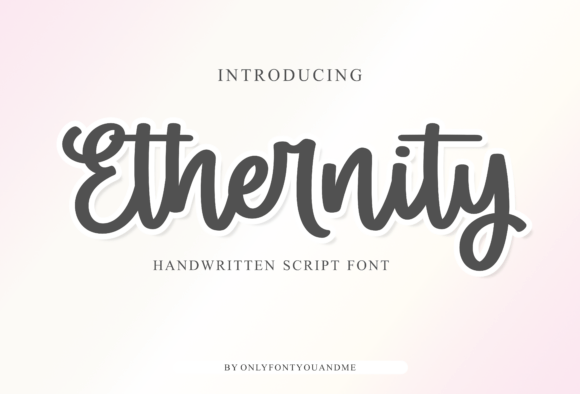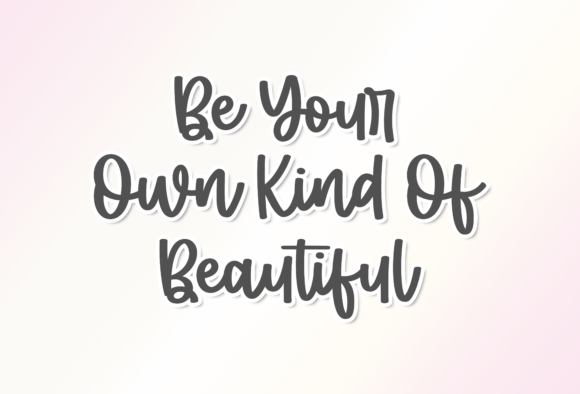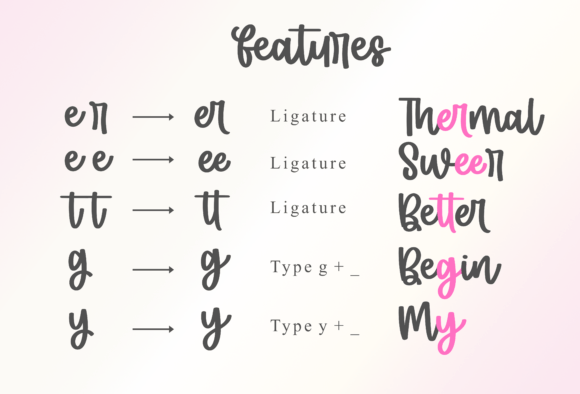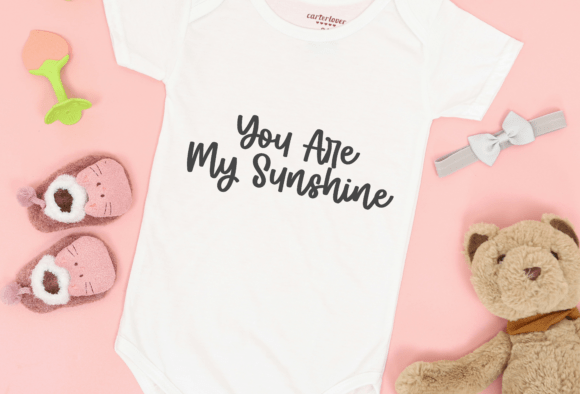
Ethernity Font: Elegant Handwritten Script for Wedding Invitations & Branding
About the Ethernity Font
Presenting Ethernity Font, a unique and stylish typeface that will make your work stand out. Experience the graceful allure of the Ethernity font, a delightfully contemporary handwritten script. Adapting the ebb and flow of natural cursive writing, Ethernity beckons with an unforced elegance that communicates sophistication. Its distinct, masterful strokes are both bold and refined, effortlessly elevating branding, invitations, and creative projects.
Ethernity is notably engaging; its bounce is thoughtfully subtle and letterforms are expertly crafted to create a unified, inviting aesthetic. This font accents warm sentiments and personal connections with its gentle slant and fluid, connected strokes.
The intrigue further escalates as Ethernity softly plays with contrasts. Celebrating a dynamic interaction of thick and thin stokes, it infuses a charming element of depth to its handwritten appeal. Step into the spotlight with the font’s unique white outline effect highlighted in the preview, designed to boost readability and turn heads with its captivating visual appeal. Indulge in the timeless elegance and cozy charm of Ethernity; your foray into personalized aesthetics.
Ethernity Font Usage Examples
Ethernity Font Example